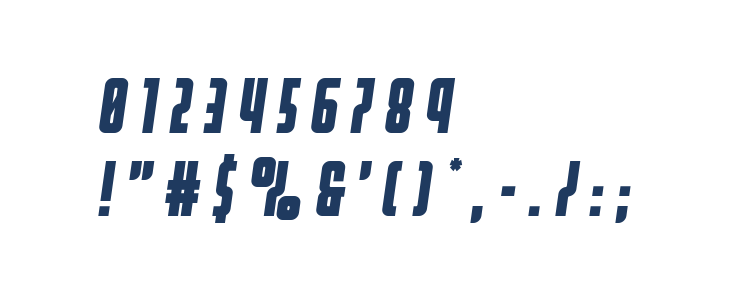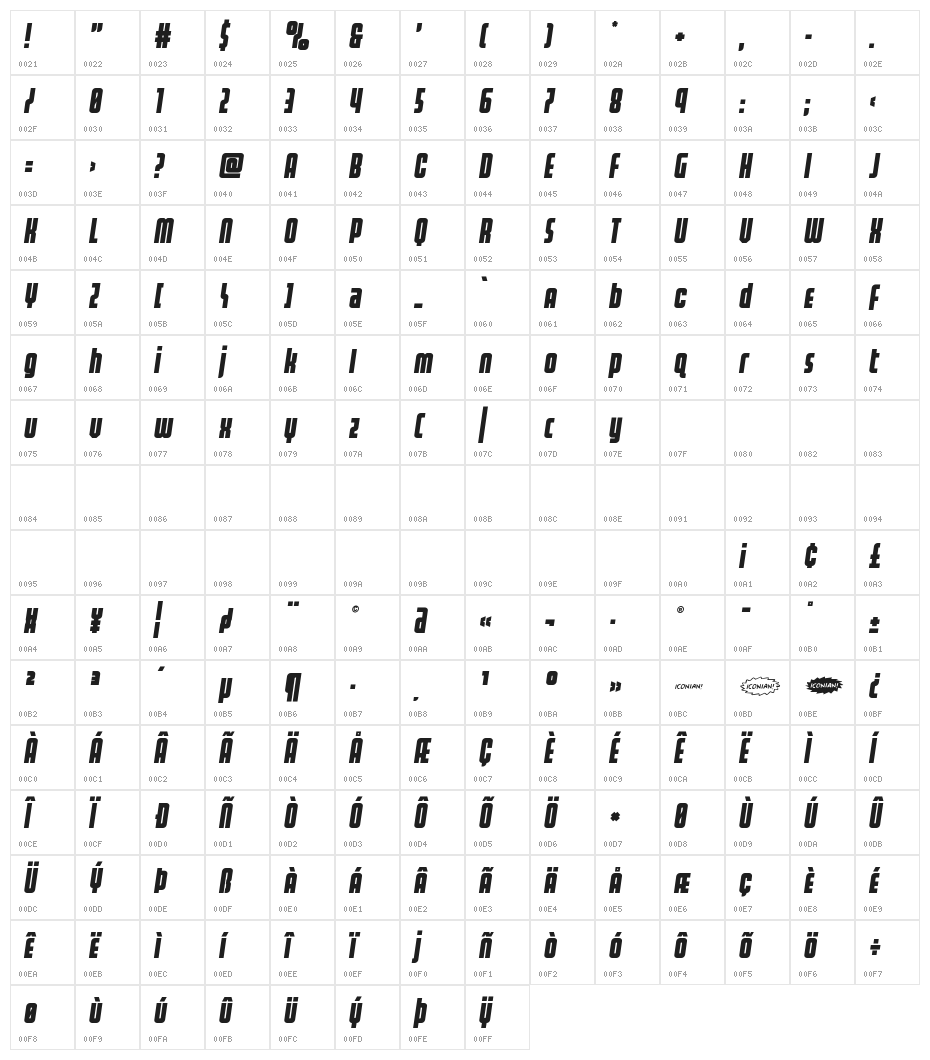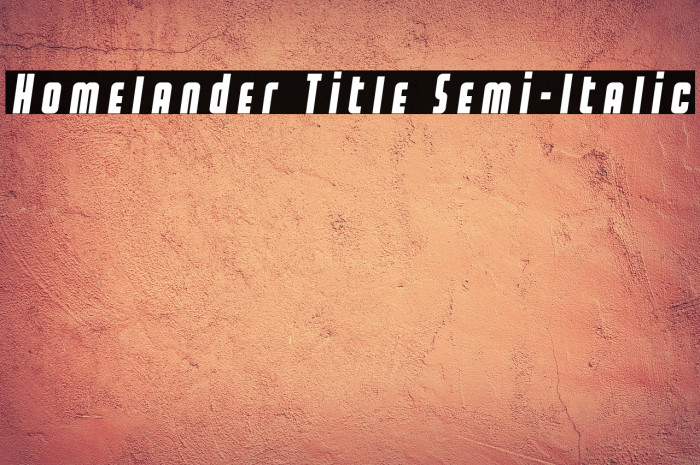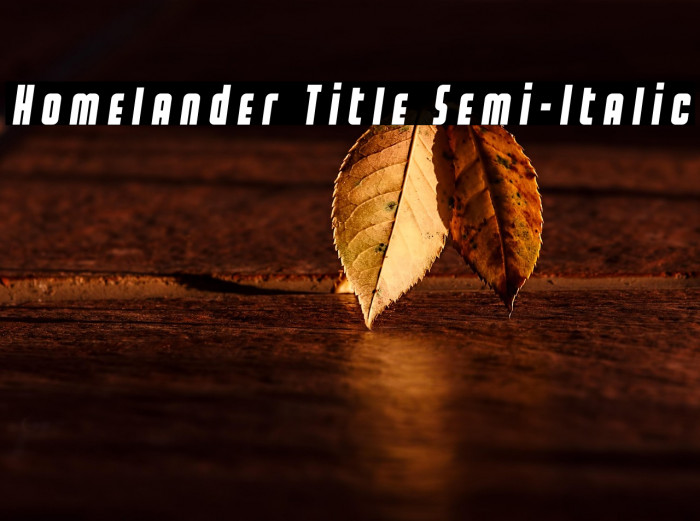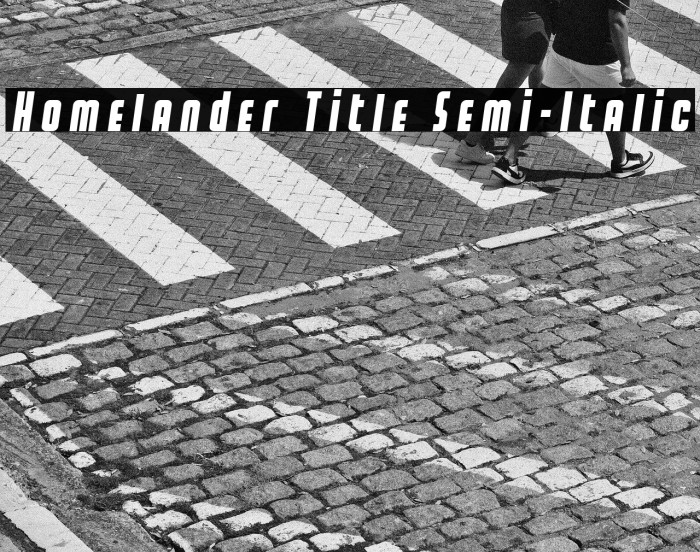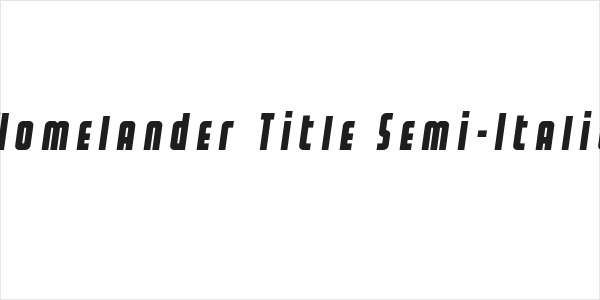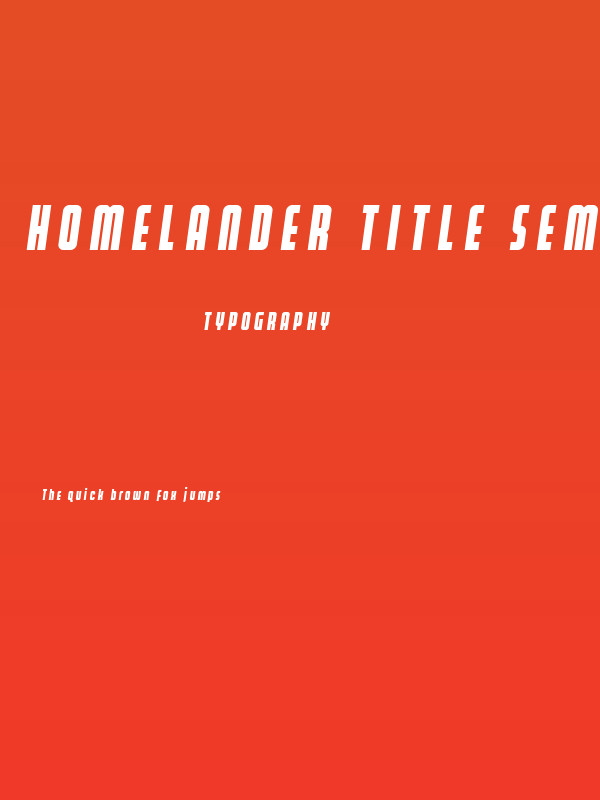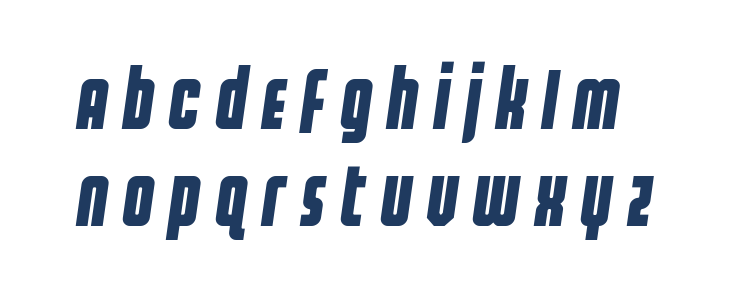
Homelander Title Semi-Italic Font
Homelander Title Semi-Italic Description
This font features a bold and dynamic style with semi-italicized characters that convey a sense of movement and energy. The uppercase and lowercase letters are designed with a strong vertical emphasis, while the numerals and special characters maintain a consistent weight and style. The font's unique slant and boldness make it stand out, offering a modern and assertive appearance. The characters are slightly condensed, enhancing the compact and impactful look. This font is ideal for projects that require a strong visual presence and a contemporary feel.
| Proposed Projects | Ideal for headlines, posters, branding, and any design needing a bold statement. |